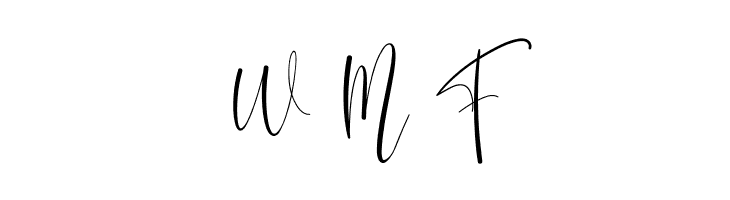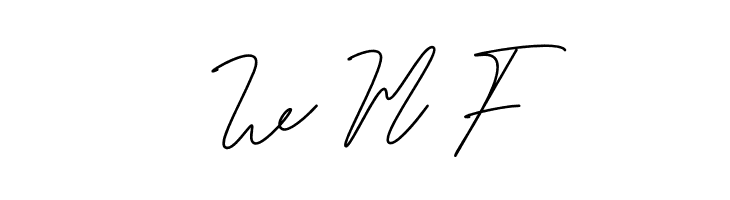
( Fonts by Yoga Letter )
A slender, modern handwritten font with a casual, flowing style.
( Fonts by Phantom Studio )
A playful, casual handwritten font with smooth curves and a friendly appearance.
( Fonts by StringLabs )
A dynamic and expressive cursive script font with fluid, connected letters.
( Fonts by StringLabs )
A bold, cursive script font with fluid, interconnected strokes and dynamic flair.
( Fonts by Steven Joss )
A playful, handwritten font with a casual and informal style.
A whimsical and flowing script font with elegant, intricate letterforms.
( Fonts by Andre Gouveia )
A playful, casual handwritten font with smooth, rounded strokes.
( Fonts by Inermedia Studio )
A lively, flowing script font with elegant curves and a handwritten feel.
( Fonts by ReivNick )
A graceful script font with fluid, connected letters and a refined aesthetic.
( Fonts by HollieInk )
A playful handwritten font with rounded, casual letterforms.
( Fonts by Qwrtype Foundry )
A flowing, cursive font with elegant, interconnected letters and a graceful aesthetic.
A flowing, cursive script font with elegant, connected strokes.
( Fonts by Scratchones )
A playful, handwritten font with rounded, consistent strokes and a casual feel.
( Fonts by Damarletter )
A lively and expressive handwritten font with fluid, dynamic strokes.
( Fonts by Ibrahima Studio )
A dynamic and fluid handwritten script with elegant, flowing curves.
( Fonts by scratchones )
A lively and dynamic script font with flowing, cursive letterforms and decorative swashes.